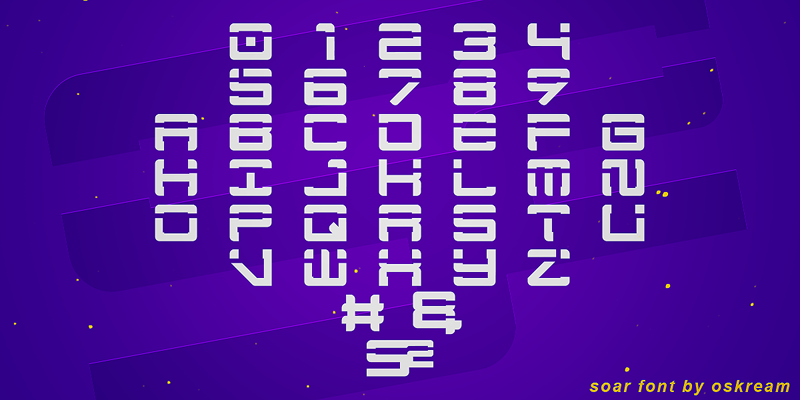
Font name: | SoaR |
Author: | Scream |
Here is the SoaR font, all created for the SoaR RC from the infamous SoaR logo in illustrator. The font has been tested and I can say that I am very proud of it! Thank you for all of your support and enjoy! |